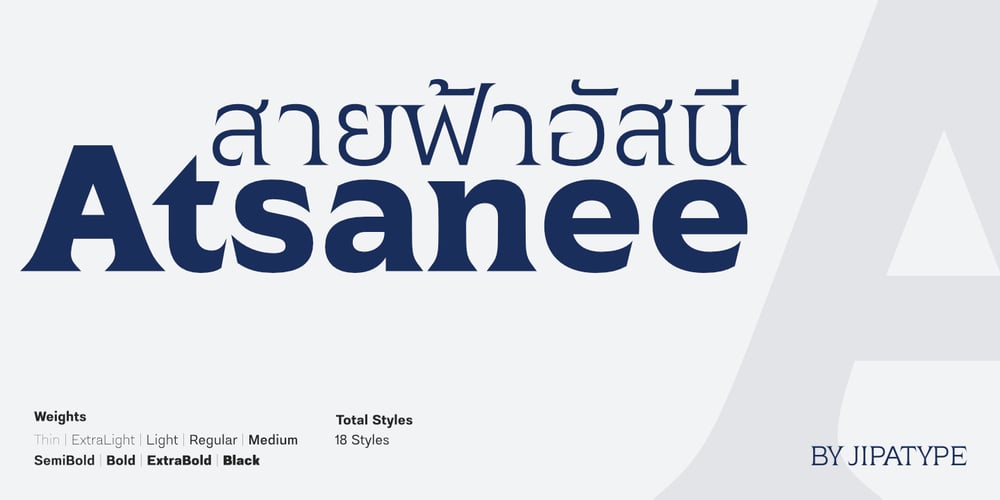
Atsanee Font Family was designed by Anupap Jaichumnan and published by Jipatype. Atsanee contains 18 styles and family package options. Atsanee is an elegant serif font typeface characterized by its high contrast serif compare to their body. Offering a total of 18 styles, this versatile typeface provides a wide range of options to cater to various design needs.